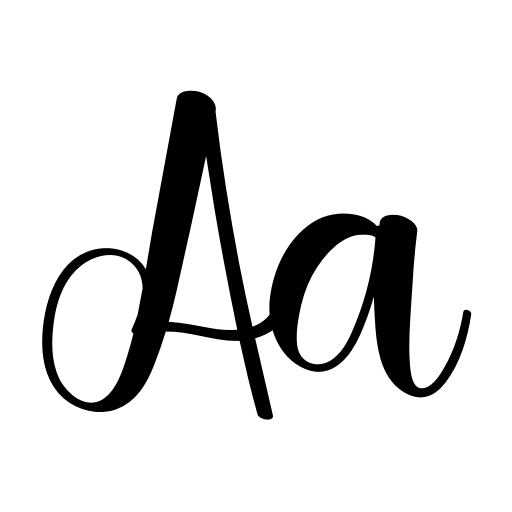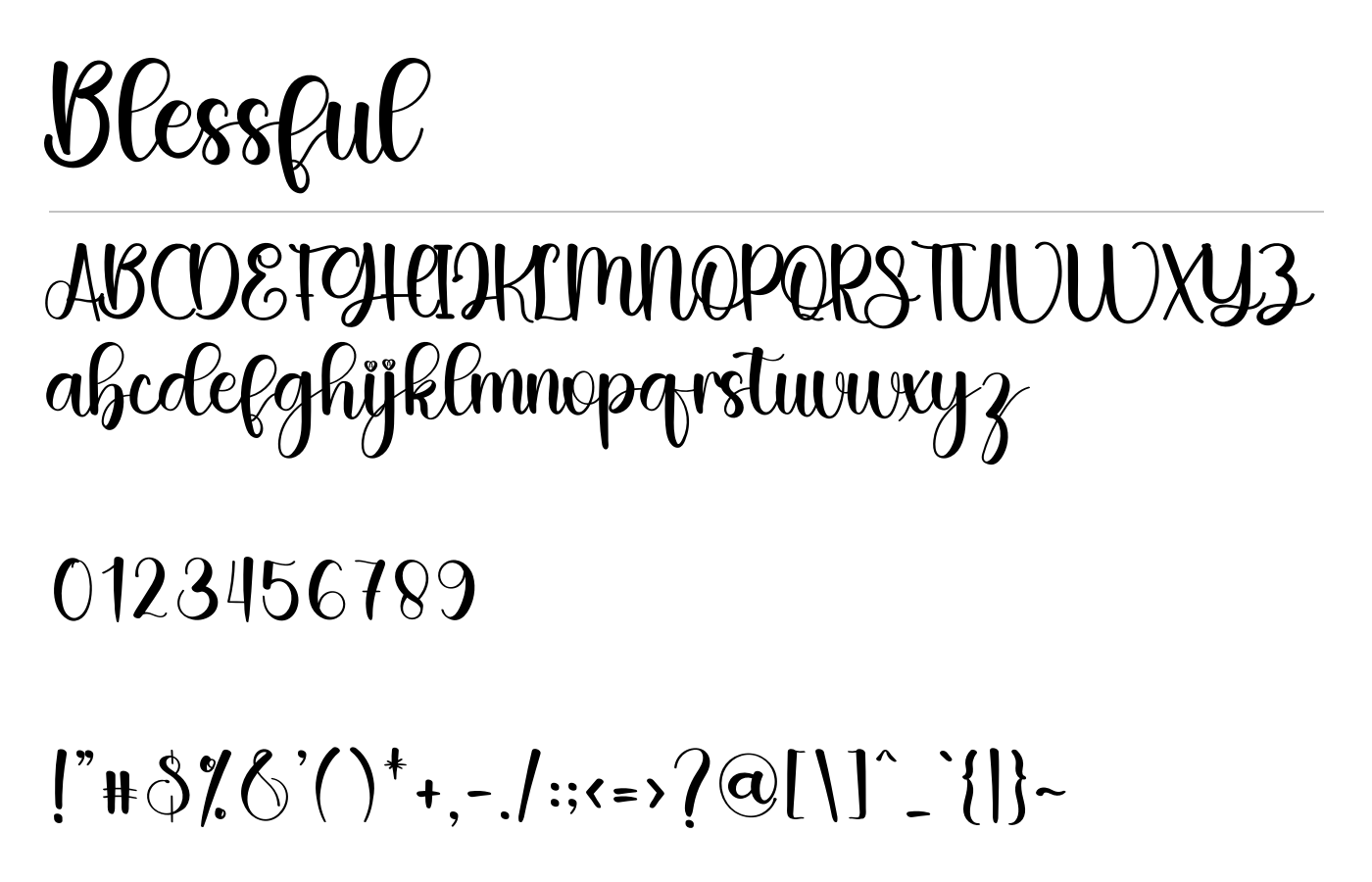
Blessful is a charming script font with a playful yet elegant feel, featuring smooth, flowing strokes and well-balanced loops that create a friendly and inviting look. Its medium weight and moderate contrast, combined with whimsical letterforms and clear legibility, make it ideal for creative branding, invitations, and decorative headlines. This font works beautifully in projects seeking a personal, handmade touch with a touch of warmth and sophistication.
Blessful Font
About Blessful Font